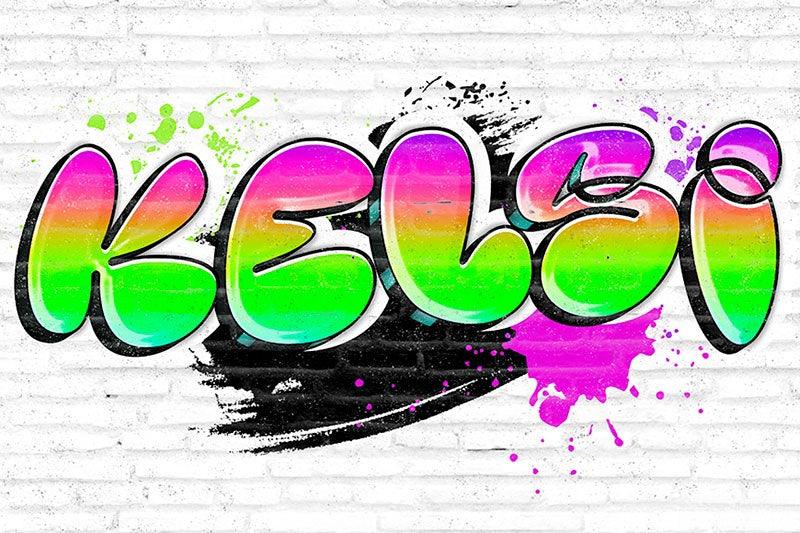
- Font Name: Expanding Chubby Cartoon Graffiti-Style English Font Kelsi
- Font Style: Cartoon Graffiti / 3D Expanding / Trendy & Personalized
- Application Scenarios: Trendy Brand LOGO Design, Street Culture Posters, Fashion Advertising Slogans, Short Video Titles, Trendy Product Packaging
Core Selling Points
- Strong Visual Impact: Features an expanding chubby 3D design with gradient color effects, creating a lively, playful cartoon graffiti atmosphere that easily grabs attention.
- Unique Style: Blends street graffiti art elements. Letters boast dynamic, fun shapes, adding a trendy, creative edge to designs.
- Versatile Adaptability: Ideal for trendy brand promotion, personalized advertising, or social media creative visuals—enhances design quality across scenarios.